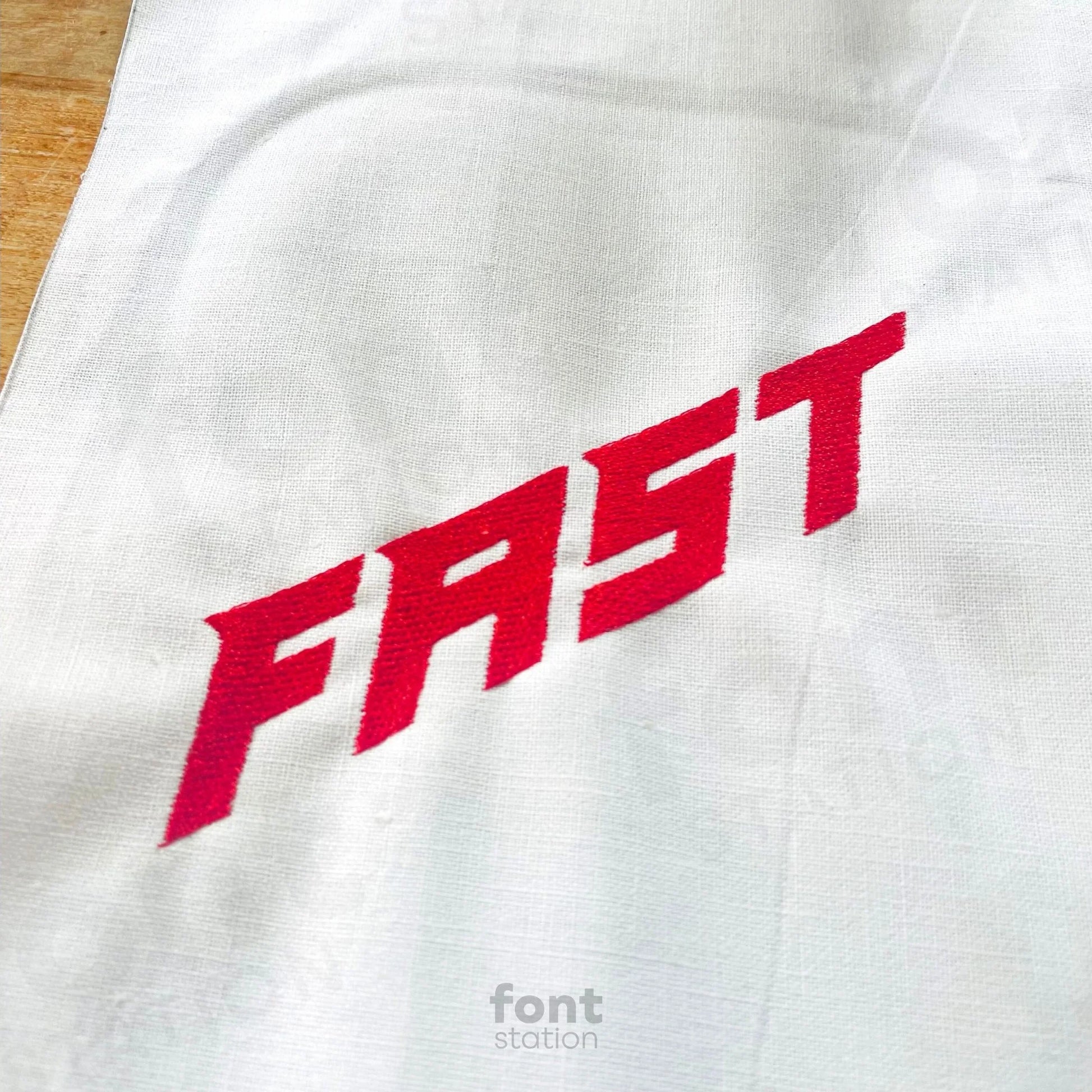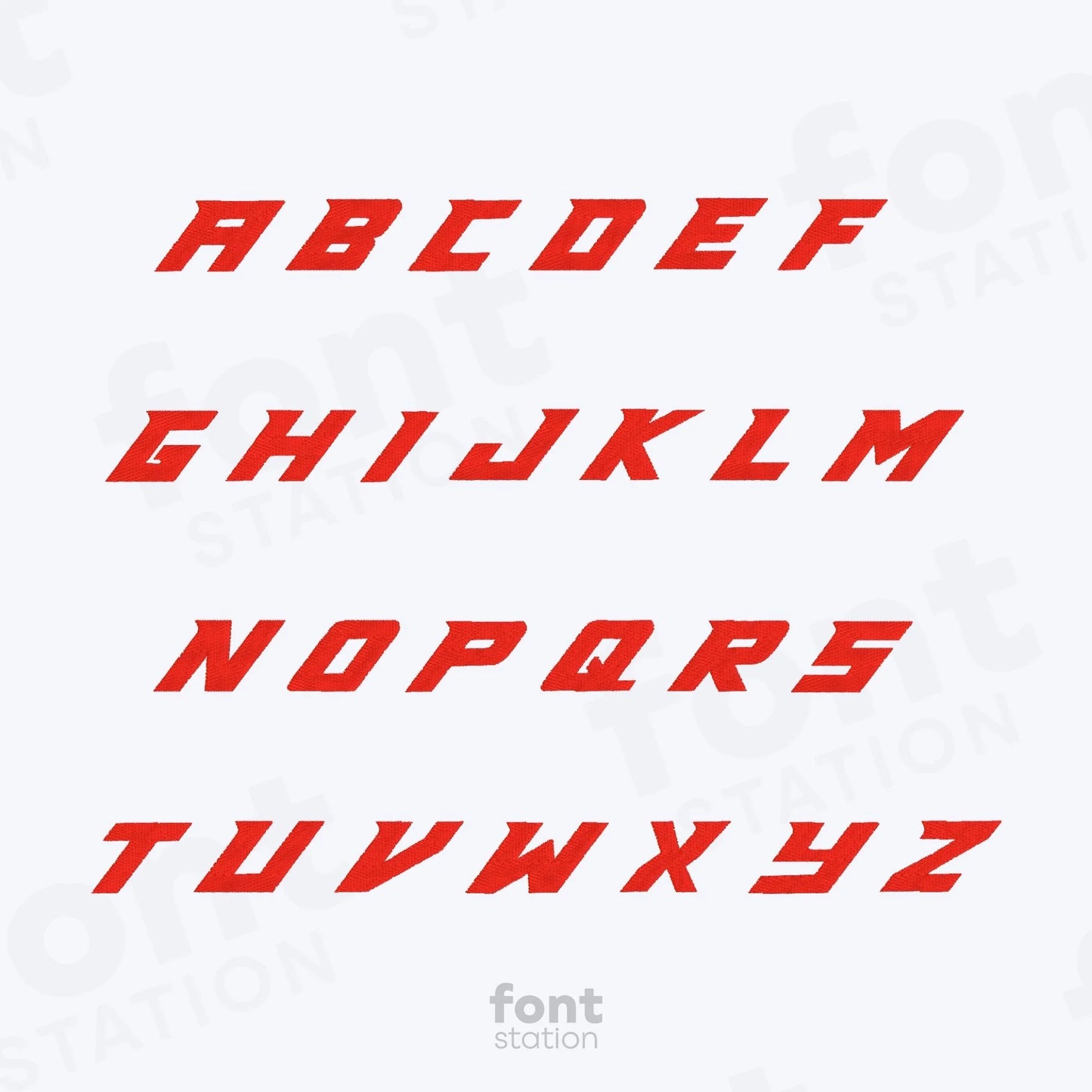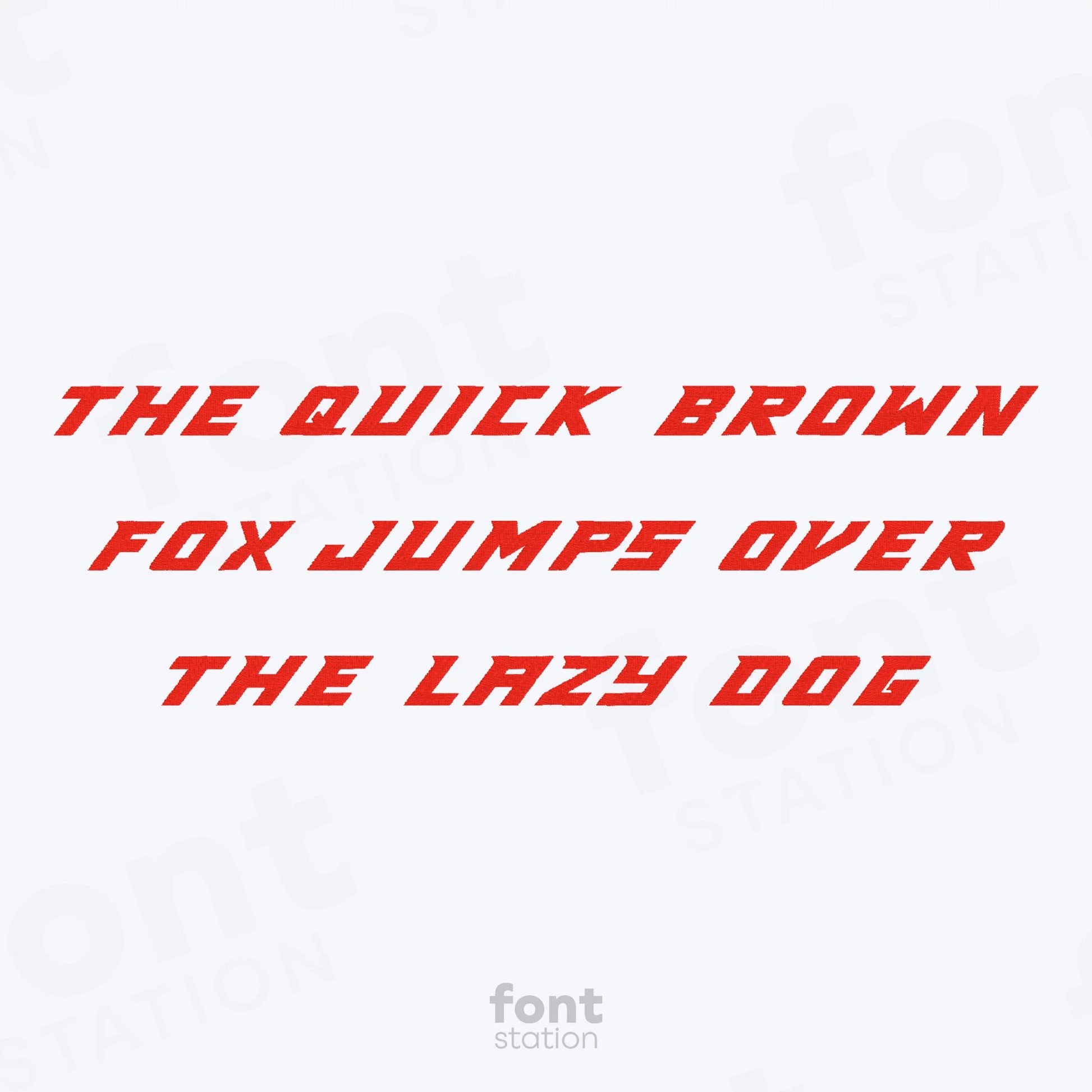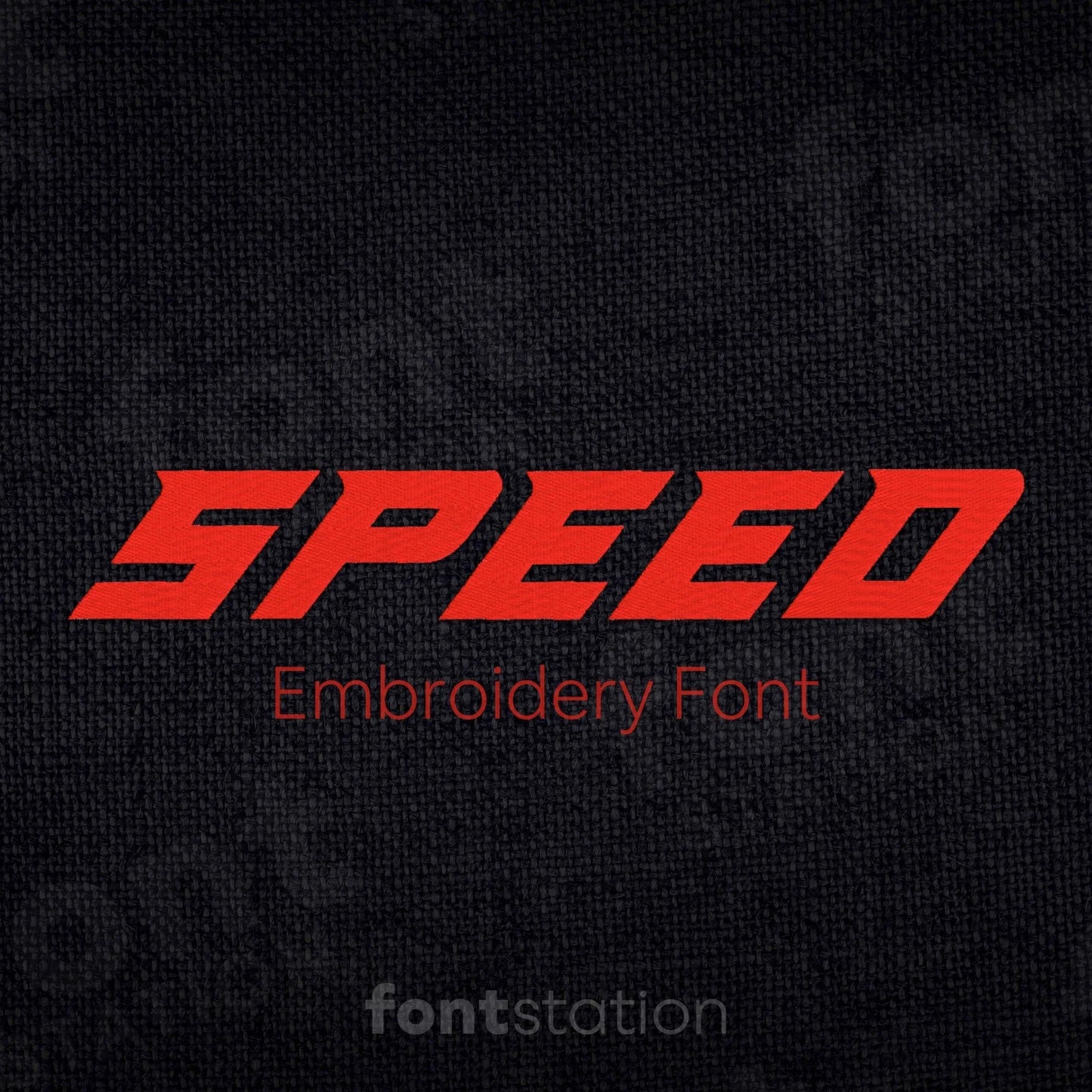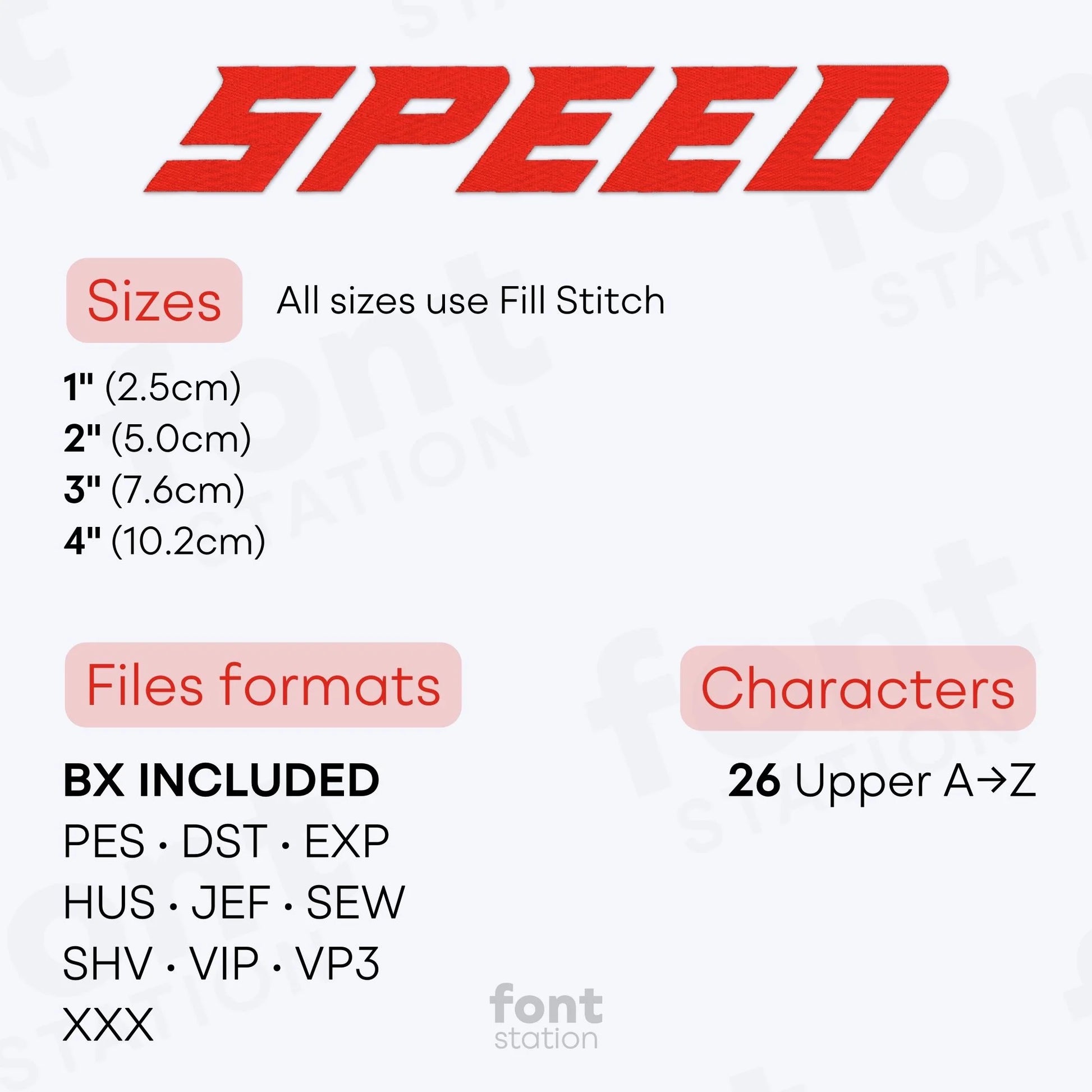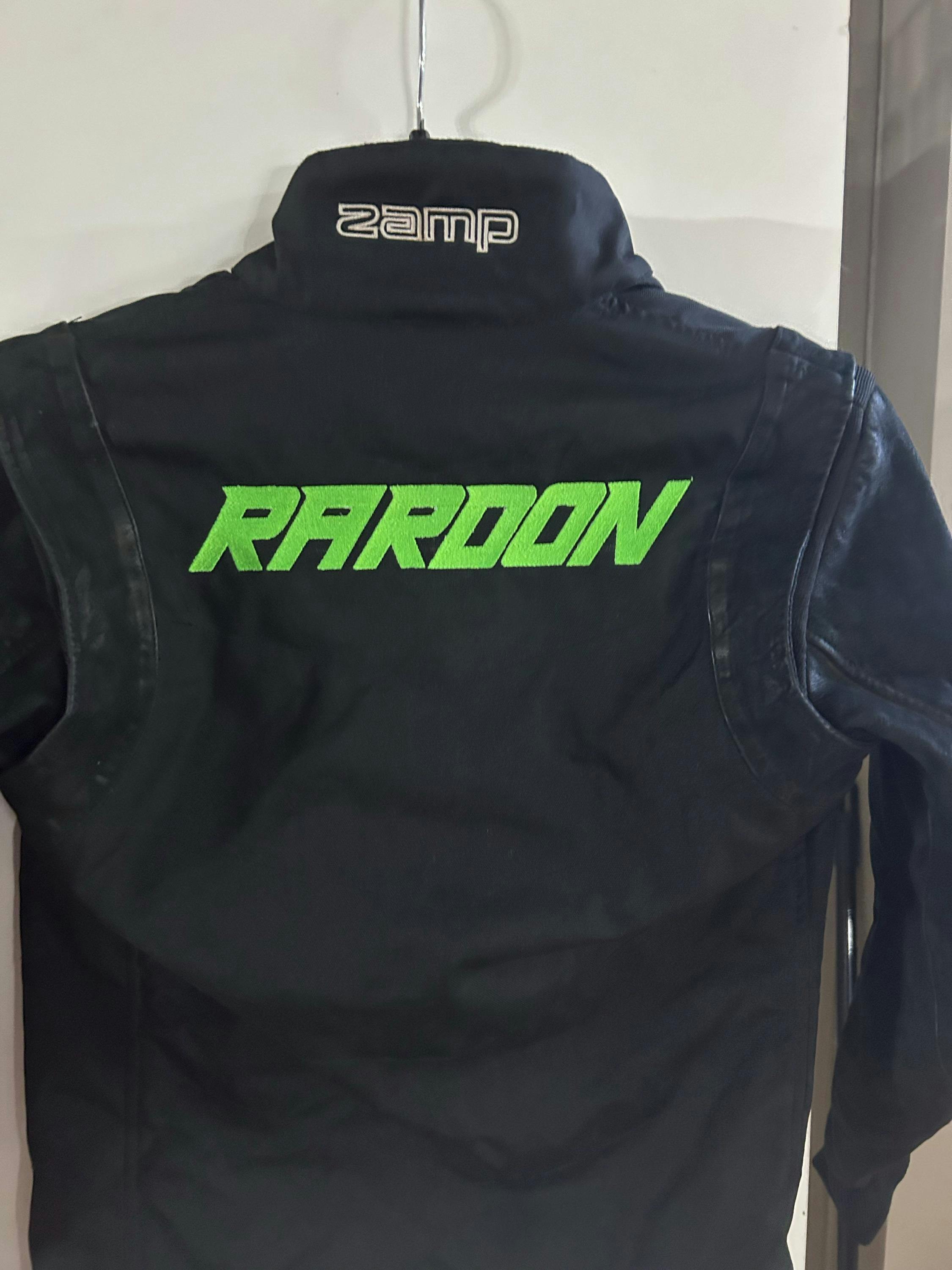
Speed Embroidery Font
Introducing our Speed embroidery font, a bold block italic alphabet that adds motion to your racing-themed designs. These dynamic letters stitch cleanly on any embroidery machine, making it perfect for your next fast-paced embroidery project.
About the Speed Embroidery Font
Rev up your embroidery projects with our Speed embroidery font, a bold, racing-style alphabet built for high-impact designs.
The Speed embroidery font features a slanted block italic alphabet inspired by racing graphics and motorsport aesthetics. These dynamic embroidery letters bring energy and movement to names, uniforms, team gear, and fast-paced projects. Digitized for clean, smooth stitching on any embroidery machine, this font delivers professional results every time. Available in BX, PES, DST, JEF, EXP, VP3, and HUS formats, it's perfect for creating bold, sporty designs with a speedy edge.